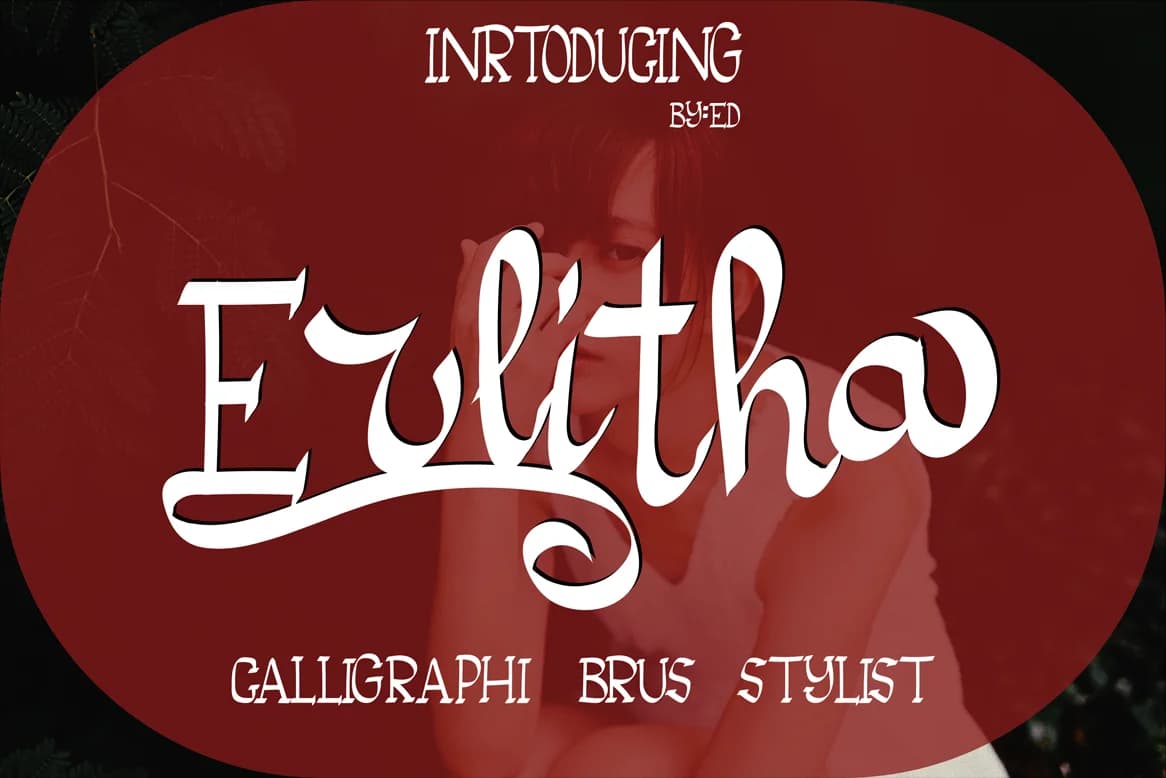
Erlitha by ed.creative is a handwritten script font that brings organic charm and authentic character to any typographic project. With its flowing letterforms and natural pen-drawn quality, this versatile typeface excels at infusing warmth and personality into designs across multiple creative applications. The font shines in wedding invitation cards, where its elegant script style sets the perfect tone for celebrating love and commitment, and works beautifully for greeting card designs that need emotional resonance. Small business branding, social media quote graphics, decorative label designs, and product packaging concepts all benefit from Erlitha's natural rhythm and handwritten authenticity that builds meaningful connection with audiences.
Whether you're designing custom event stationery, boutique product mockups, or DIY craft project layouts, this script brings visual interest while maintaining readability across different sizes and viewing contexts. The handwritten aesthetic works harmoniously with both minimalist and ornate design sensibilities, making it a flexible choice for creative professionals, small business owners, and design enthusiasts exploring new typographic directions. Erlitha's approachable style captures attention without overwhelming your composition, allowing it to complement both bold and delicate design elements seamlessly.
Erlitha Font is a script font that shines as a display or heading face. Pair it with a clean sans-serif or serif font for body text β the contrast creates a clear hierarchy while the two styles stay balanced and easy to read.
Erlitha Font